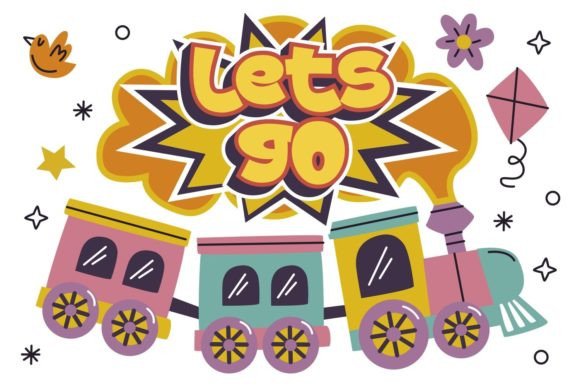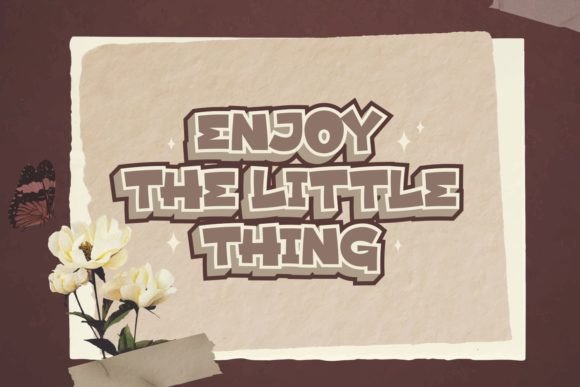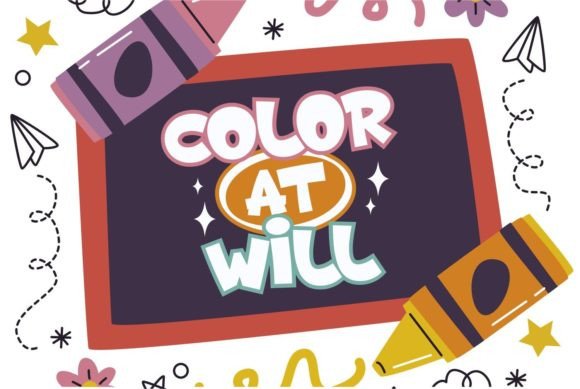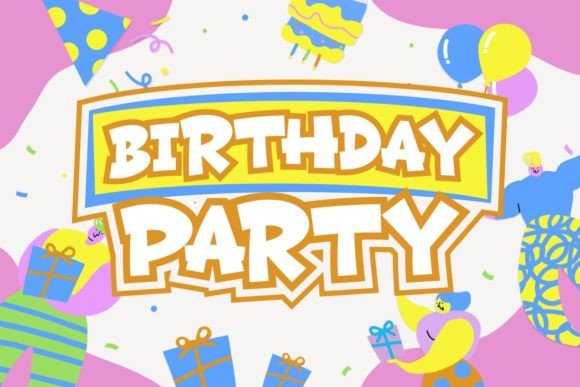
Introducing Comic Teras Font: The Ultimate Display Font for Playful Typography
Are you tired of using the same old fonts for your design projects? Look no further than Comic Teras Font, a unique and eye-catching display font that’s sure to make your work stand out. With its cute and chubby design, this quirky font is perfect for projects that require thick and playful typography.
What Makes Comic Teras Font So Special?
Comic Teras Font is a one-of-a-kind typeface that’s designed to add a touch of playfulness to any design project. Its thick and bold lines make it perfect for creating eye-catching posters, cards, and advertising materials. But what really sets it apart is its unique and quirky design, which is sure to capture the attention of your audience.
Whether you’re a designer, crafter, or DIY enthusiast, Comic Teras Font is the perfect choice for any project that requires a fun and playful typography. From book covers to apparel, this font is versatile enough to be used in a wide range of applications.
Key Features of Comic Teras Font
- Unique and eye-catching design: Comic Teras Font has a distinctive and quirky design that’s sure to make your work stand out.
- Thick and playful typography: This font features thick and bold lines that are perfect for creating eye-catching headlines and titles.
- Versatile: This font can be used in a wide range of applications, from posters and cards to books and apparel.
Here are a few ideas for using Comic Teras Font in your design projects:
- Create eye-catching posters: Use Comic Teras Font to create bold and eye-catching posters for events, promotions, or advertising campaigns.
- Design fun and playful cards: This font is perfect for creating fun and playful cards for birthdays, holidays, or other special occasions.
- Develop a brand identity: Use Comic Teras Font to create a unique and recognizable brand identity for your business or organization.
Tips and Tricks for Getting the Most Out of Comic Teras Font
Here are a few tips and tricks for getting the most out of Comic Teras Font:
- Experiment with different colors: Comic Teras Font looks great in a wide range of colors, so don’t be afraid to experiment and find the perfect color scheme for your design.
- Use it in combination with other fonts: This font pairs well with a wide range of other fonts, so feel free to get creative and experiment with different font combinations.
- Pay attention to font size: Comic Teras Font is a bold and eye-catching font, so make sure to use it at a font size that’s large enough to make an impact.
Comic Teras Font is a unique and eye-catching display font that’s perfect for designers, crafters, and DIY enthusiasts. With its cute and chubby design, this quirky font is sure to add a touch of playfulness to any design project. Whether you’re creating posters, cards, or advertising materials, Comic Teras Font is the perfect choice for projects that require thick and playful typography.